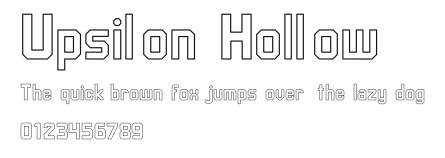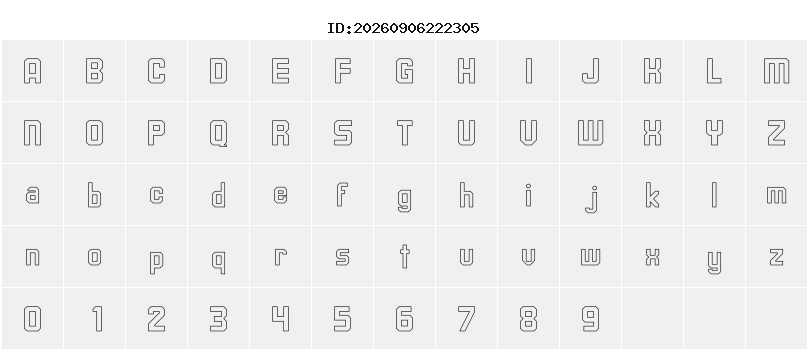
About Upsilon Hollow.ttf
Upsilon Hollow.ttf is a modern, elegant sans-serif font designed for ultimate readability and visual harmony. Perfect for branding, headlines, web design, and print materials.